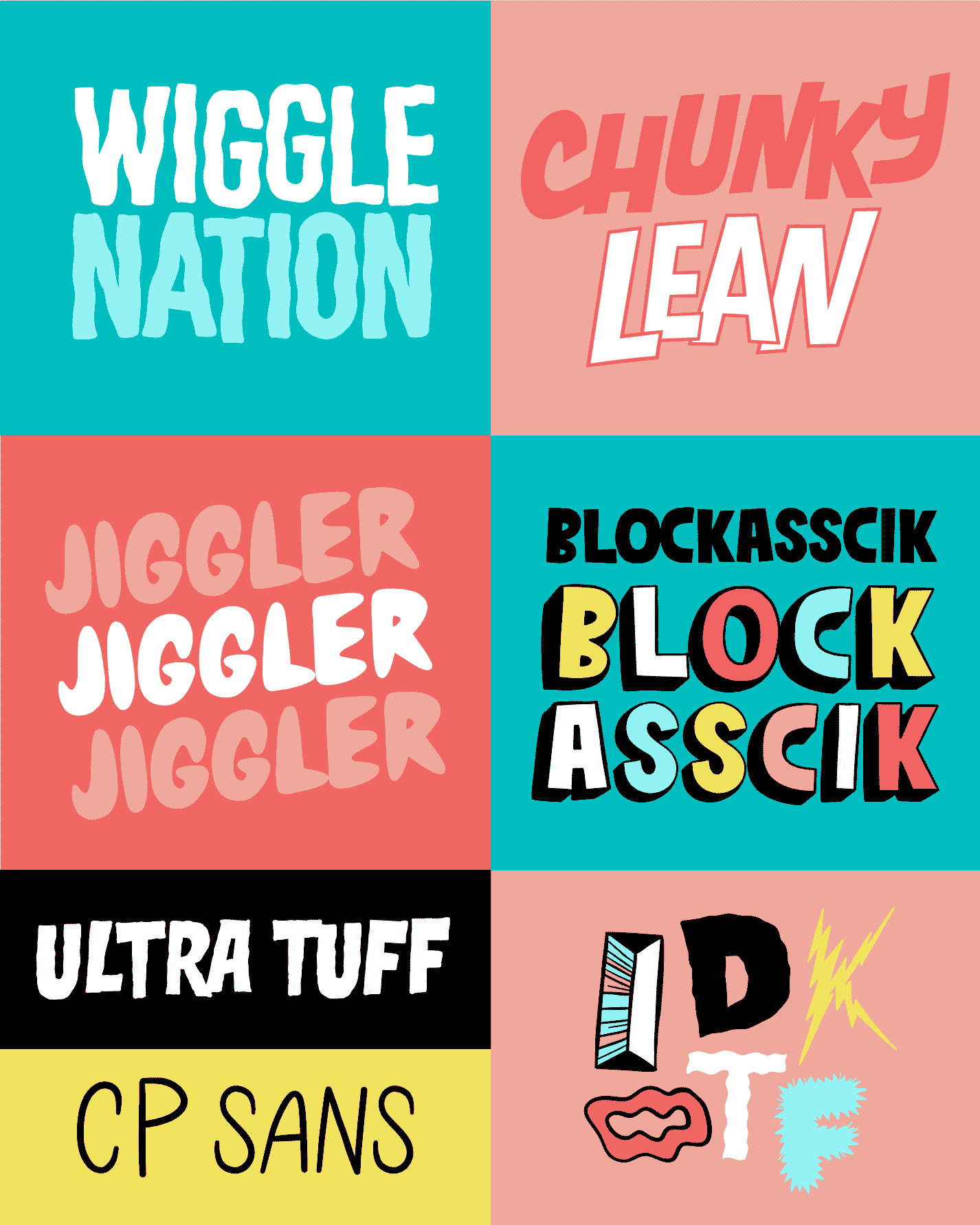
MEGA Font Pack! - Chris Piascik Collection
7 hand drawn, display fonts ready for maximum type expression and font vibes!
This set includes my fonts:
• Blockasscik
• Chunky Lean
• CP Sans
• IDKOTF
• Jiggler
• UltraTuff
• Wiggle Nation